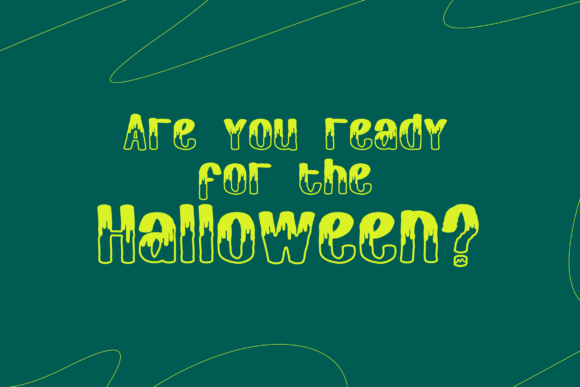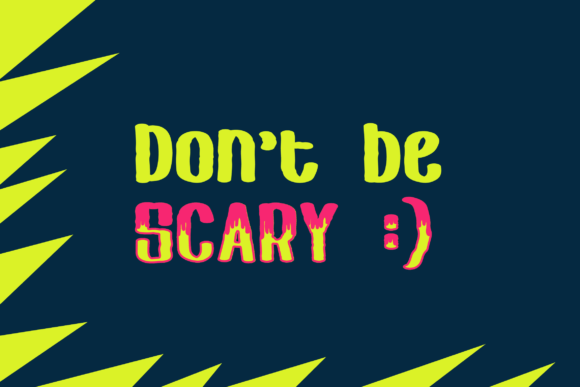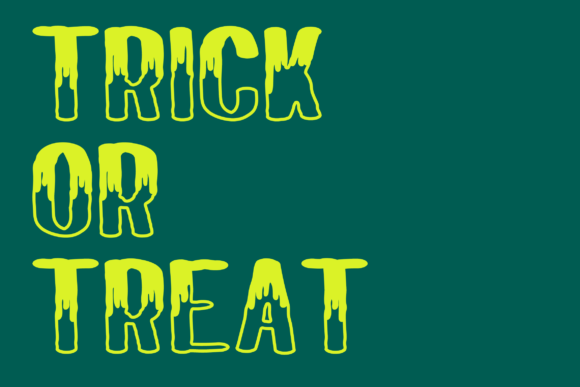
Introduction to Cweamy Font
Cweamy is a display font that comes with a fun layered style.
It is suitable for t-shirts, branding, social media, and so on .